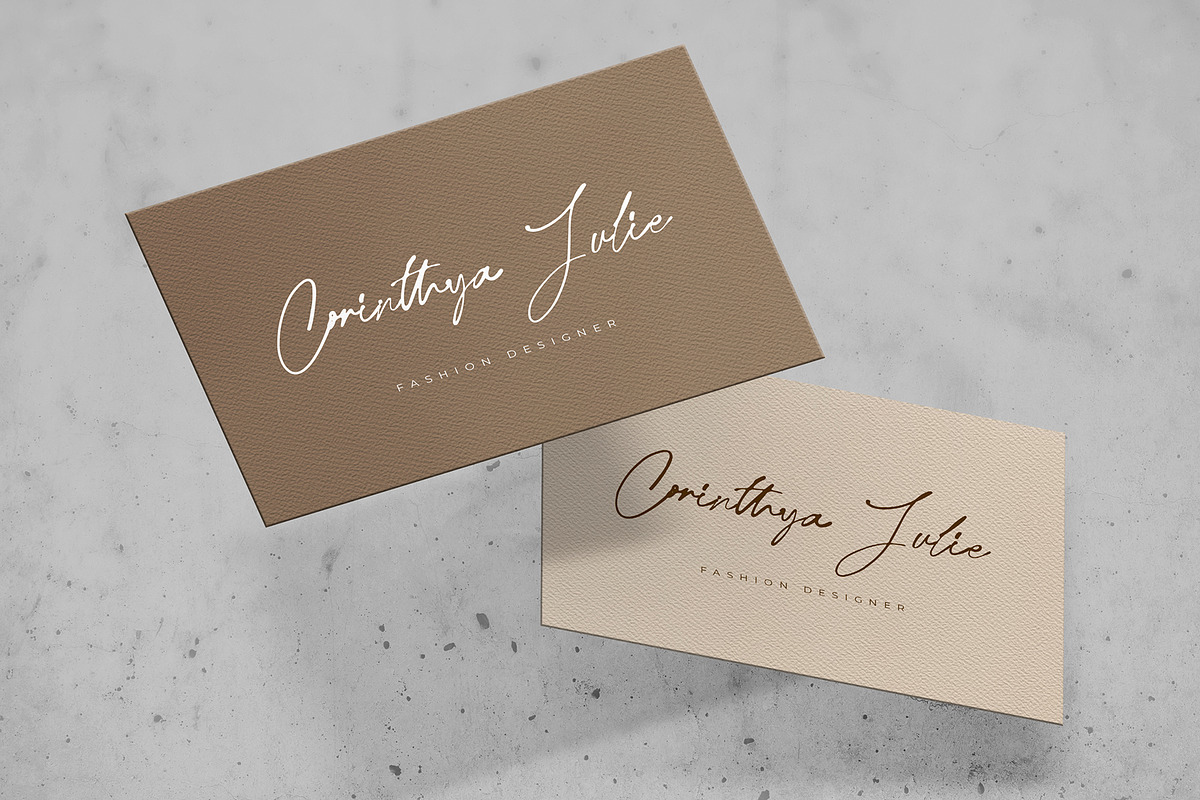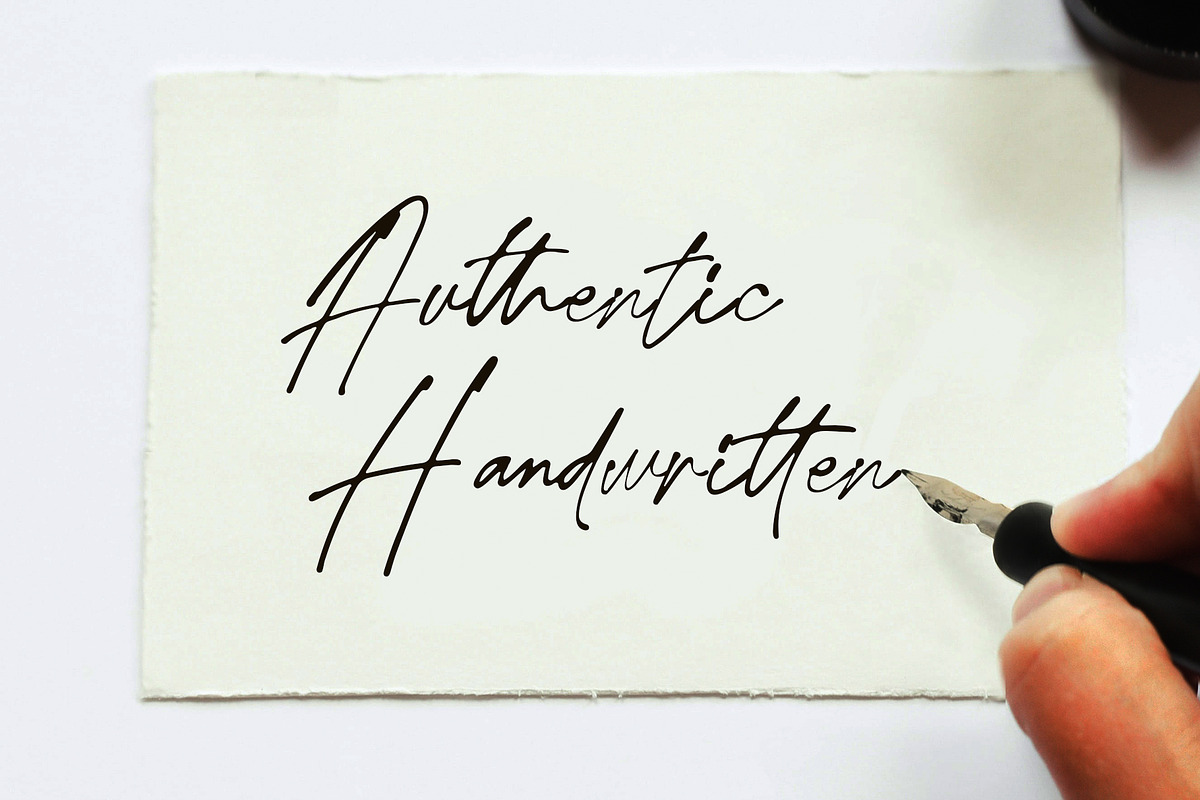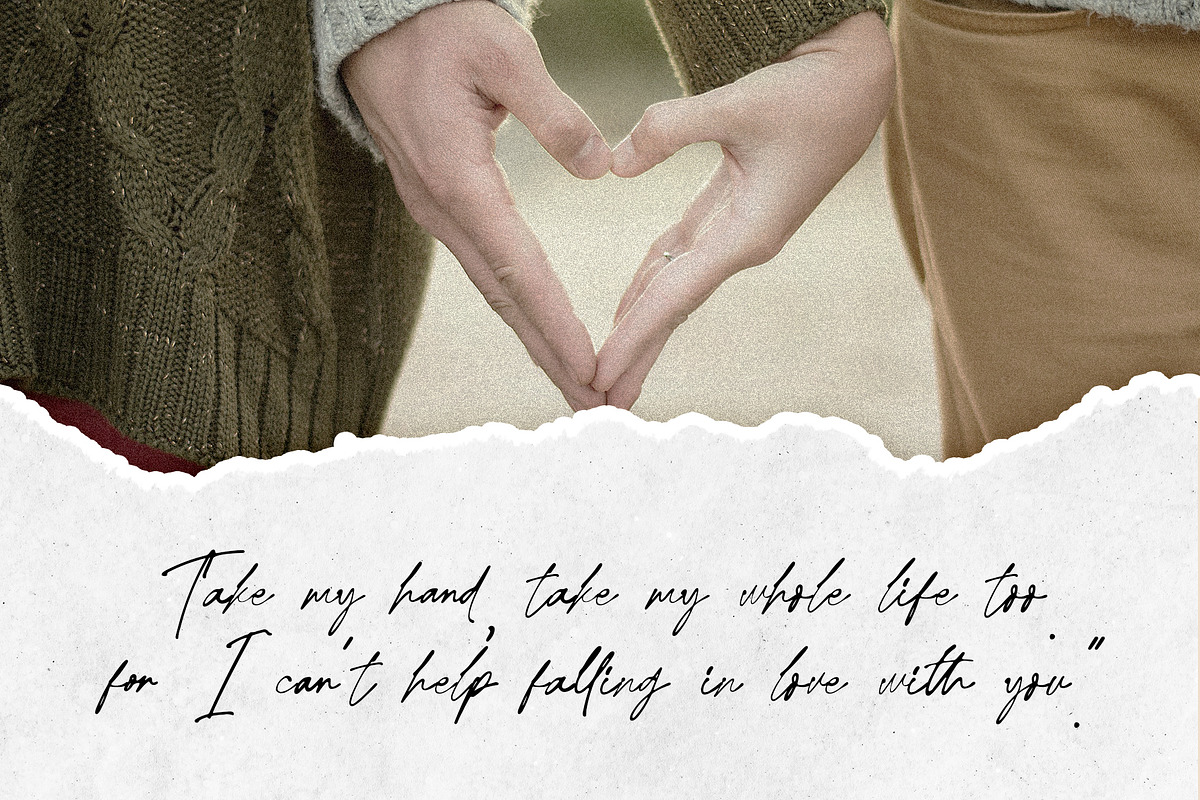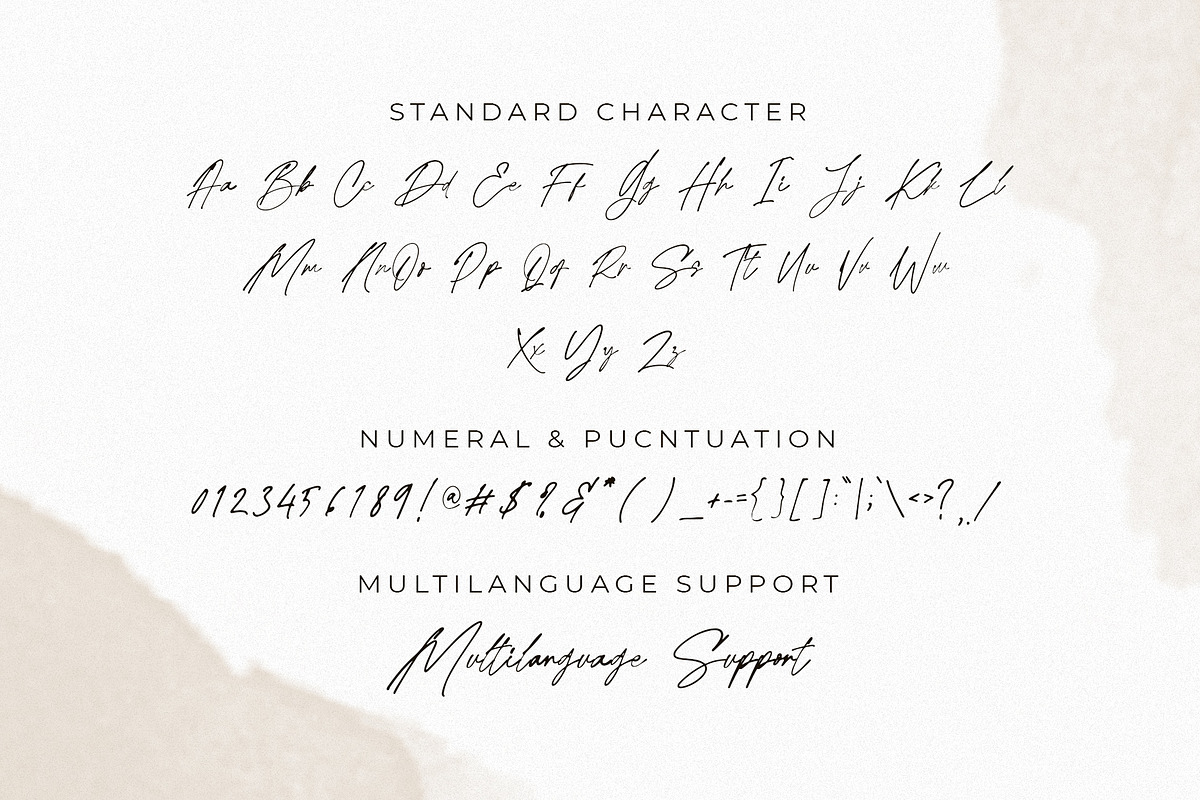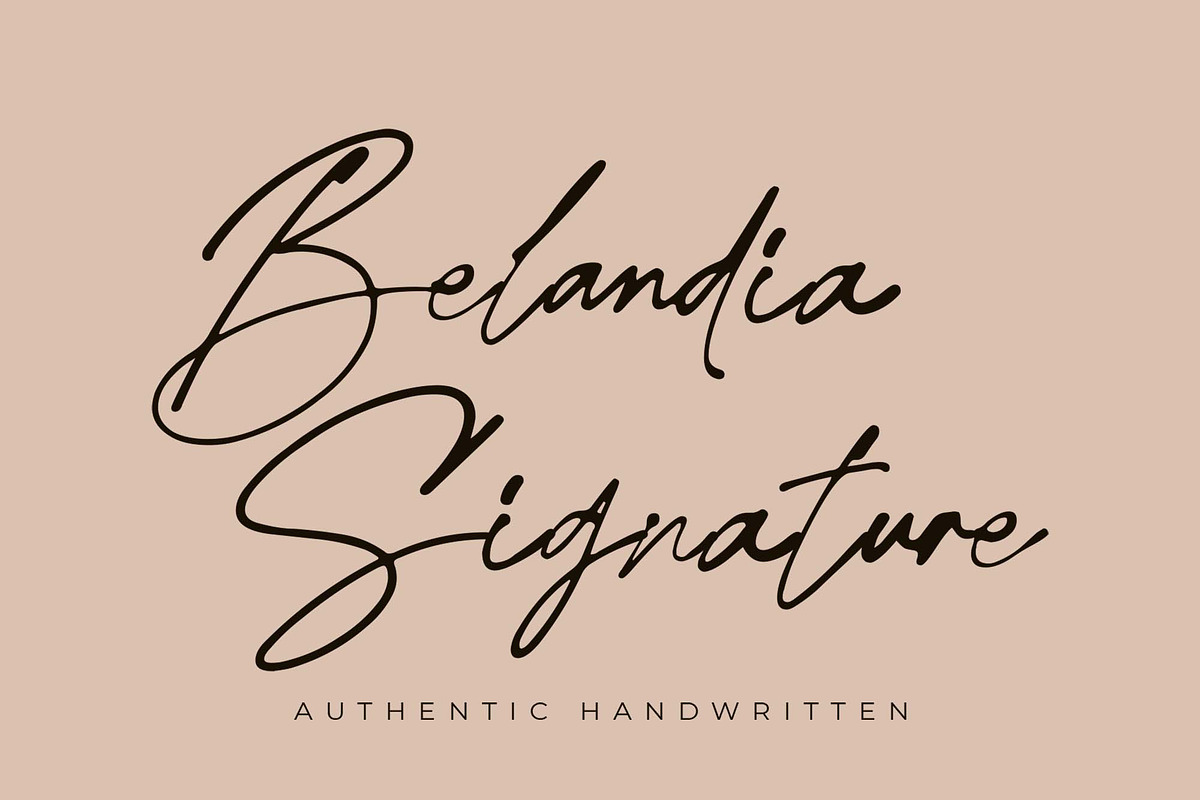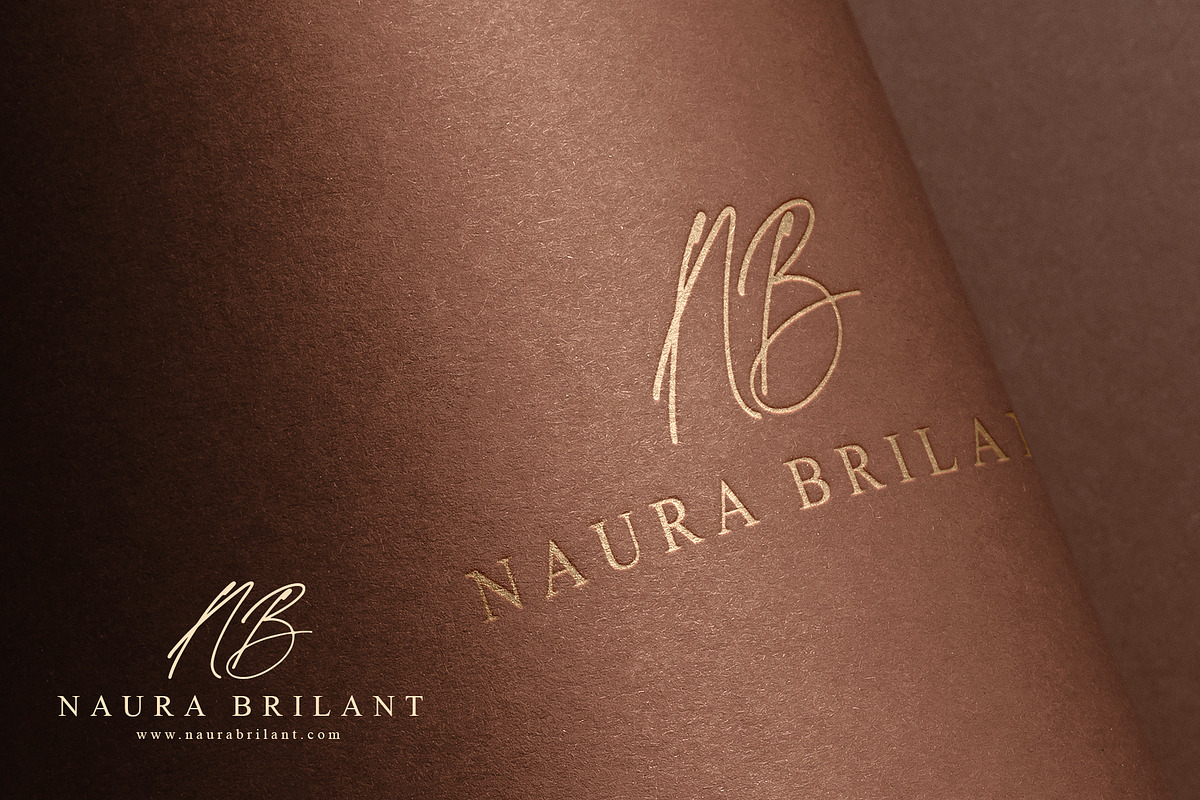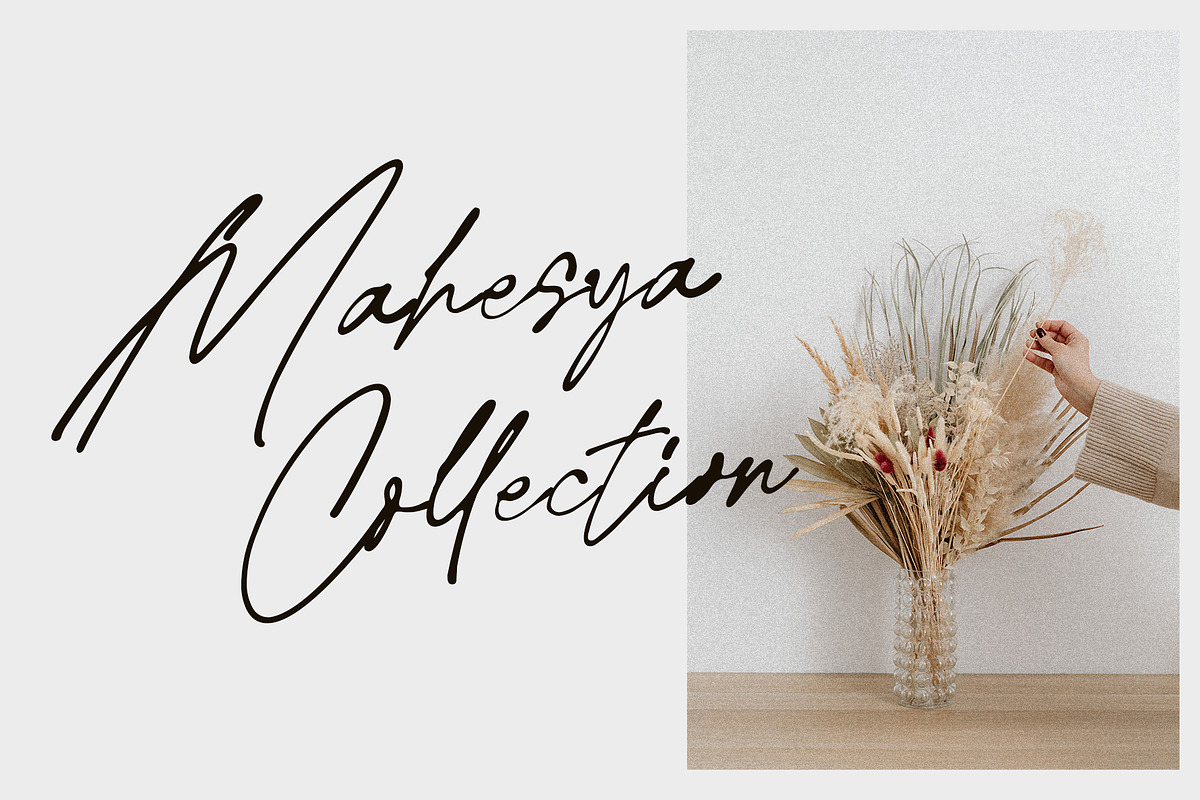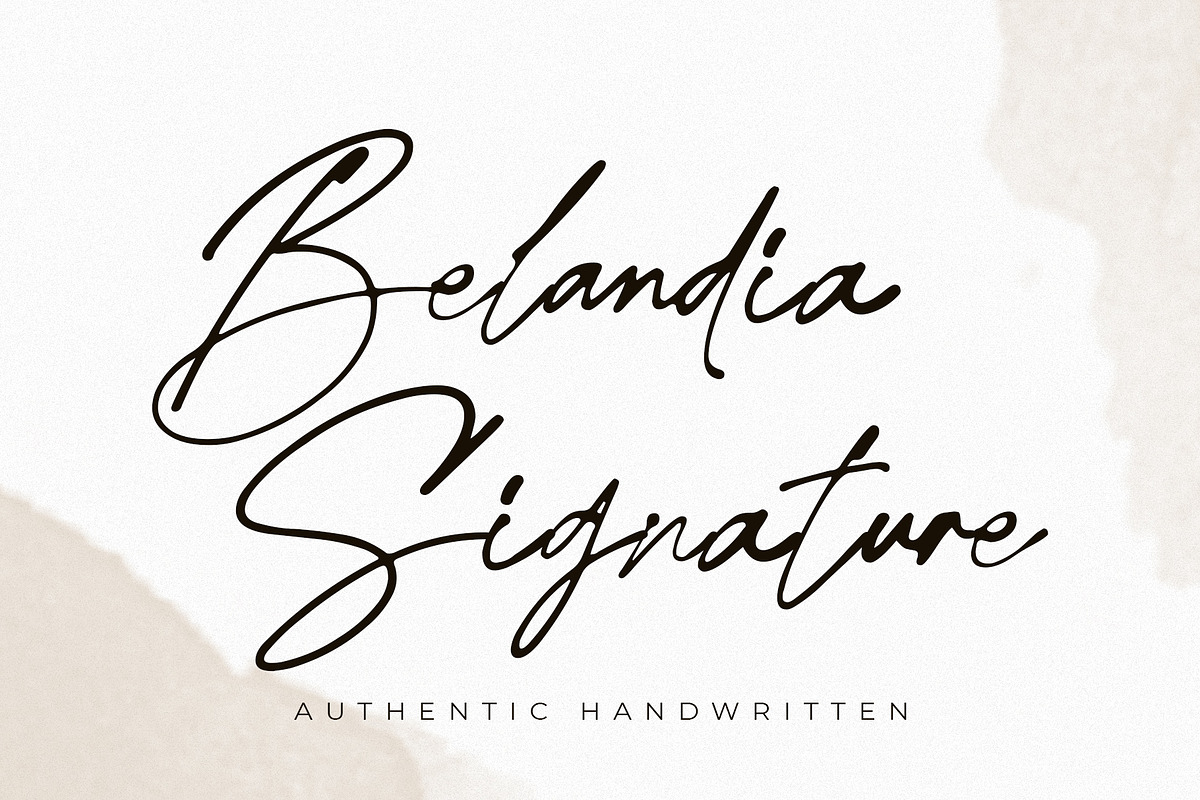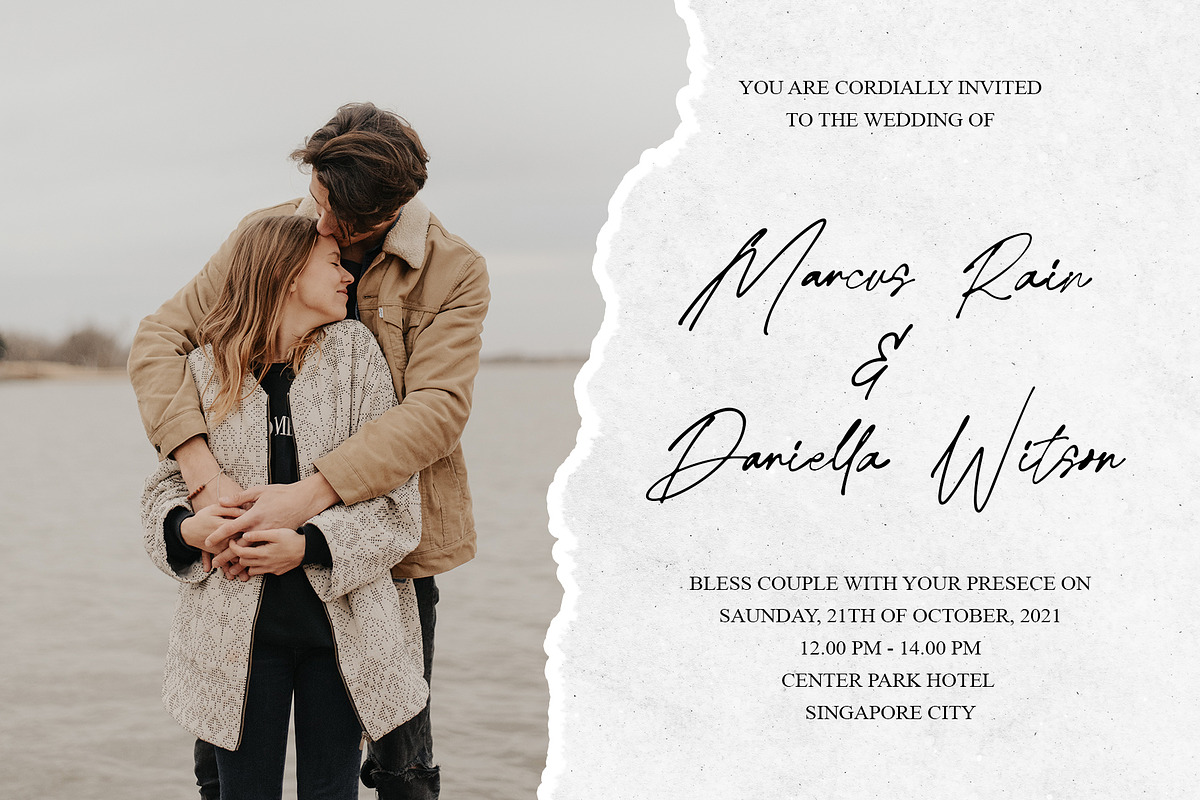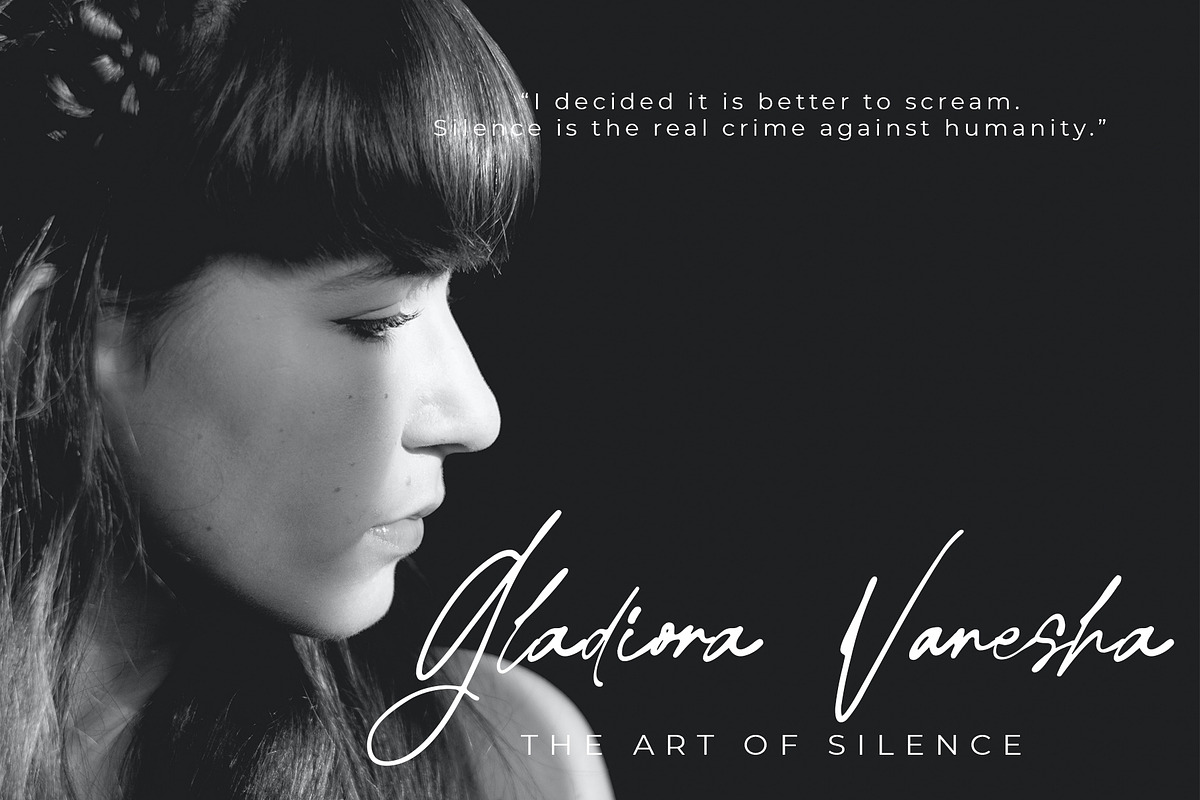
Belandia Signature
Belandia Signature is an authentic handwritten font with a natural hand-lettered touch that gives an authentic feel to the design, this font is perfect to be used for signature, logo design, branding, wedding design, wedding invitation, watermark, stationery, poster and more.